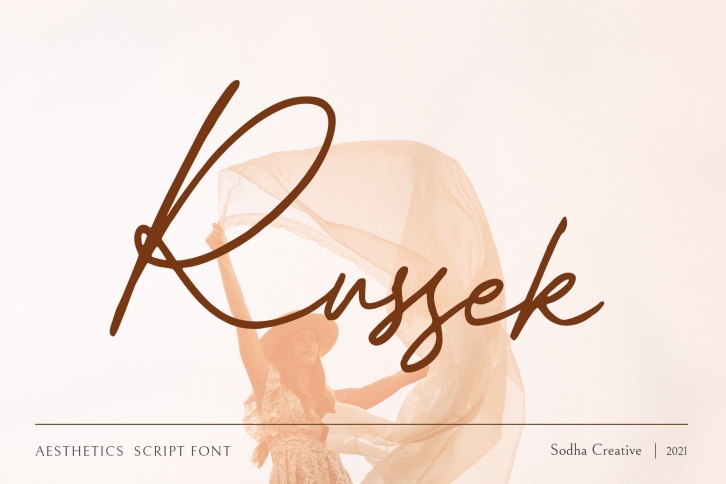
Russek is a trendy and unique font with an authentic style. It was designed by Sodha Creative and it's a great choice for creative people who need such a font. It was released on May 21, 2021 and the file size is 10.35 MB. Russek will add an organic vibe to any design idea!